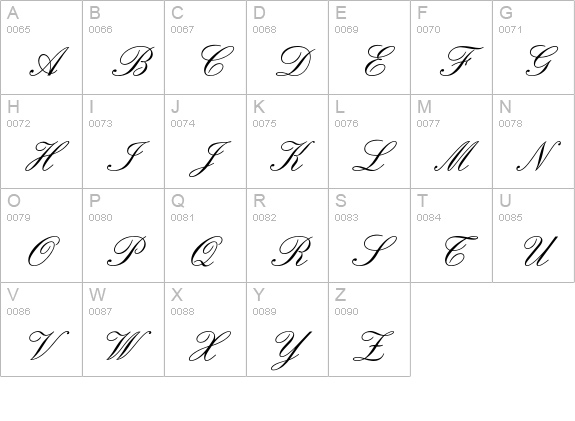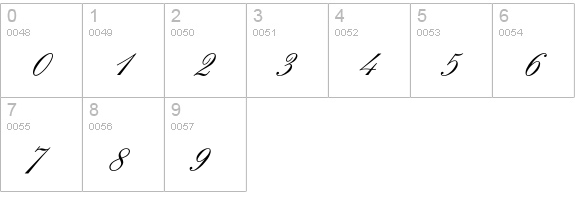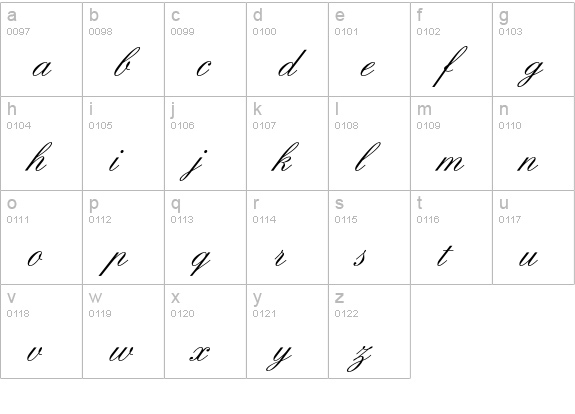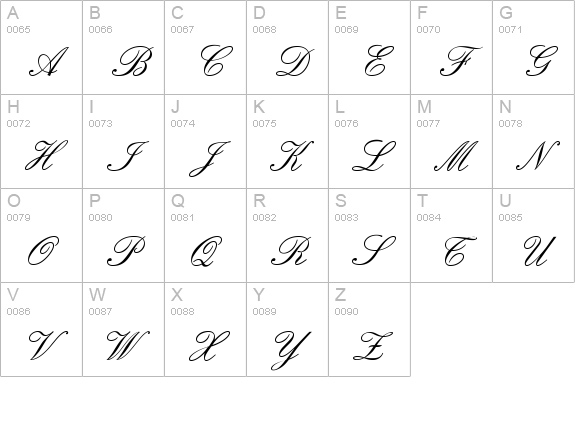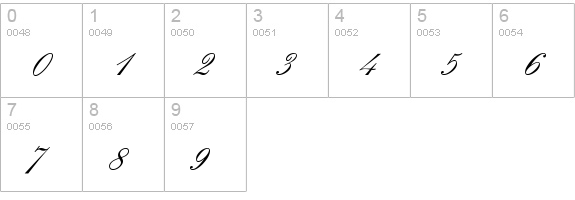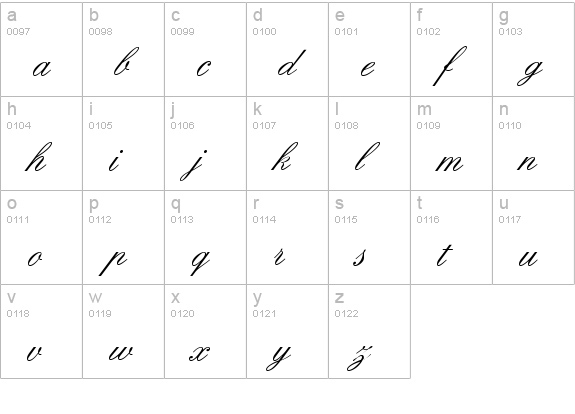
Englische Schreibschrift 2 VERSION ROMAIN Regular Font Details
Englische Schreibschrift 2 VERSION ROMAIN Regular is the standard, neutral variant in the Englische typeface family \xE2\x80\x94 well suited to general body text, paragraphs, and standard typographic work.
Englische Schreibschrift 2 VERSION ROMAIN Regular font is a timeless and elegant typeface that exudes sophistication and charm. With its classic design and flowing strokes, this font is perfect for adding a touch of refinement to any project. Whether you're designing invitations, creating branding materials, or crafting elegant signage, Englische Schreibschrift 2 VERSION ROMAIN Regular font will elevate your work to the next level. The best part? This stunning font is available for free download at FontsMarket.com. Don't miss out on the opportunity to enhance your design projects with the beauty and grace of Englische Schreibschrift 2 VERSION ROMAIN Regular font. Download it today and let your creativity soar!